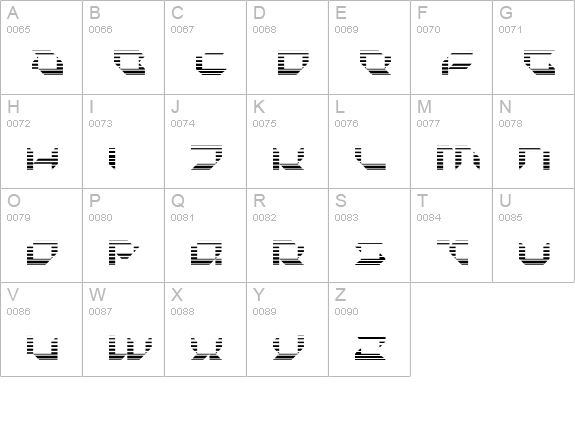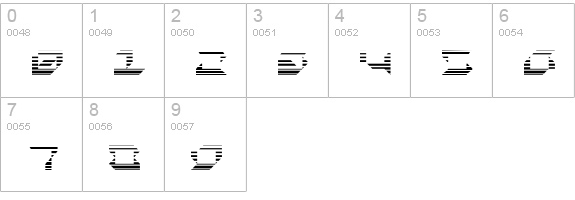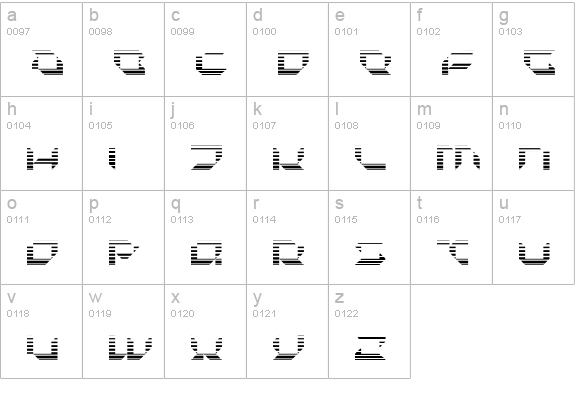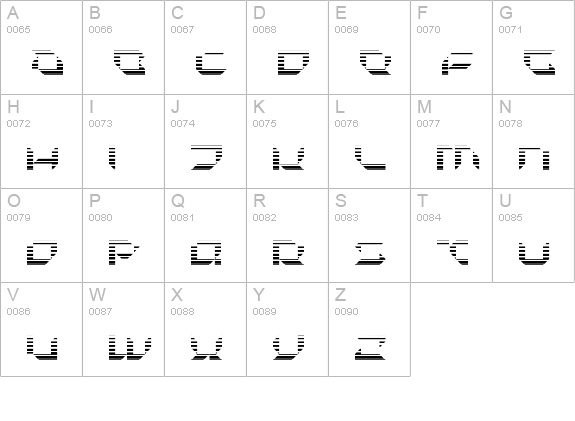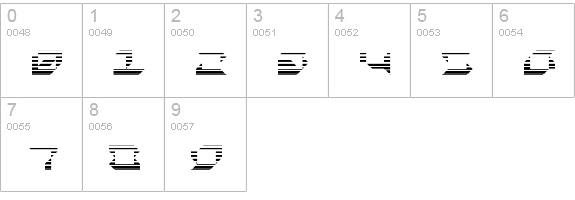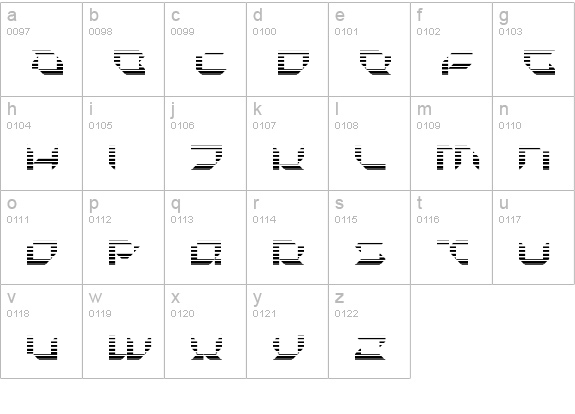
Pluranon Fade Font Details
Introducing Pluranon Fade font, a striking display typeface that exudes modern elegance and sophistication. With its unique fading effect, this font is perfect for adding a touch of creativity and style to your design projects. The delicate balance between the bold letterforms and the subtle fade creates a visually captivating look that is sure to make a statement. What sets Pluranon Fade font apart is not just its stunning design, but also its accessibility. This font is available for free download at FontsMarket.com, allowing designers, creatives, and enthusiasts alike to easily incorporate it into their work without any cost. Whether you're working on branding, advertising, packaging, or any other creative project, Pluranon Fade font is a versatile choice that will elevate your designs to the next level. Embrace the beauty and versatility of Pluranon Fade font today and let your creativity shine with this stunning typeface that is both impactful and freely accessible. Download it now at FontsMarket.com and elevate your design projects with a touch of modern sophistication.